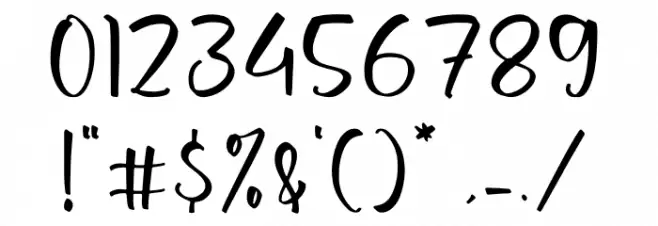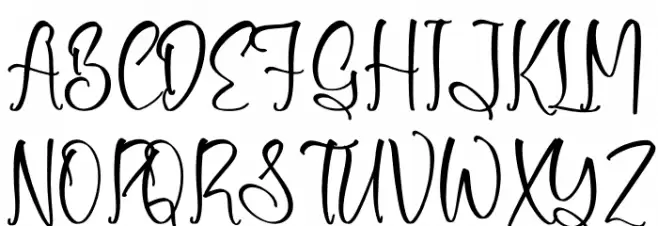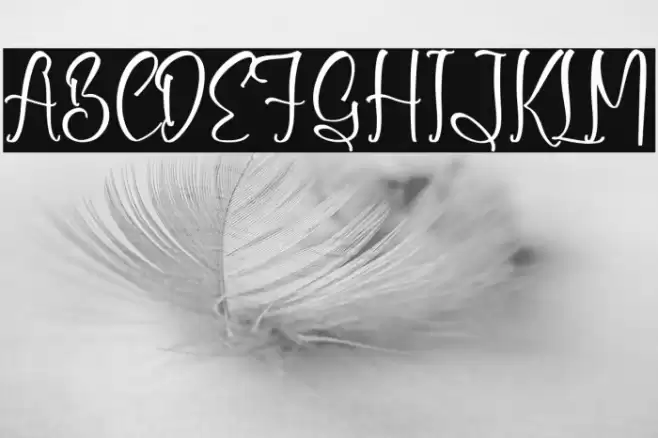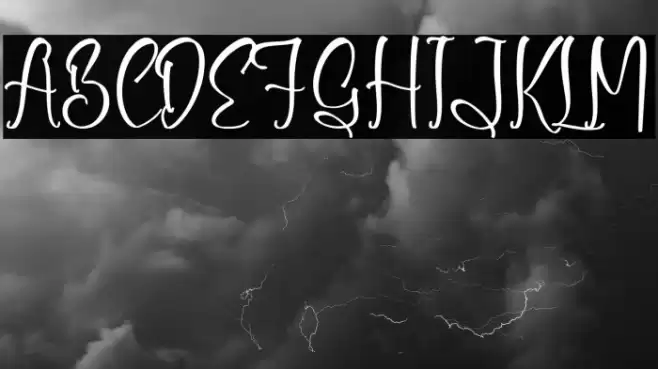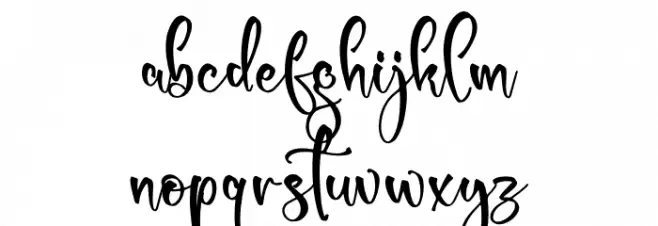
Shirlley Gilberta Font
Shirlley Gilberta Description
A decorative, cursive script font with a handwritten, elegant style featuring flowing, connected strokes and varying line thickness.
| Overall Style | Elegant, Handwritten, Script |
| Use Case | Invitations, greeting cards, branding, logos, personal stationery |